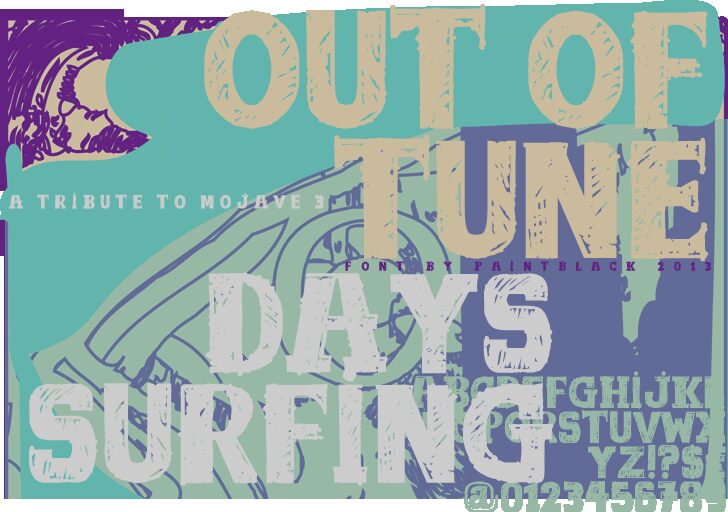
Out of Tune from Paintblack is a free eroded display font with broad slab serifs, dense capitals, and a roughly printed surface marked by scratches, chipped edges, and irregular dark patches across nearly every letter. The blunt, uneven shapes resemble battered woodblock type.
Live music, nightlife, and DIY culture suit its distressed voice, making it useful for concert posters, album covers, venue signage, and merchandise that should look stamped, photocopied, or weathered after a long run of shows. Its most natural audience is independent bands, small independent clubs, record shops, and streetwear labels drawn to deliberately worn print rather than polished branding.